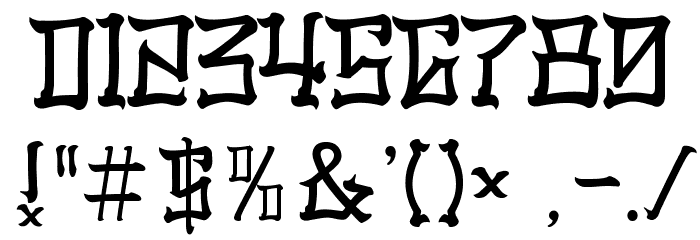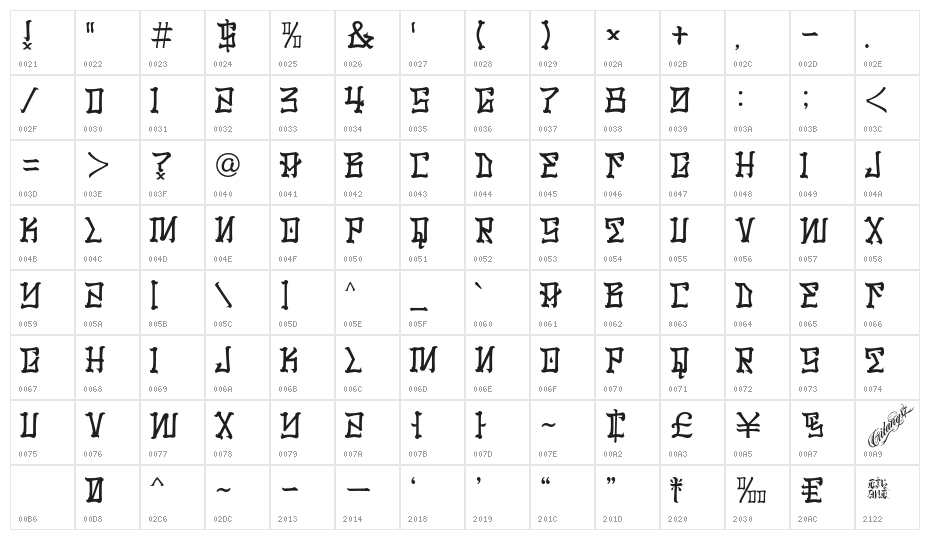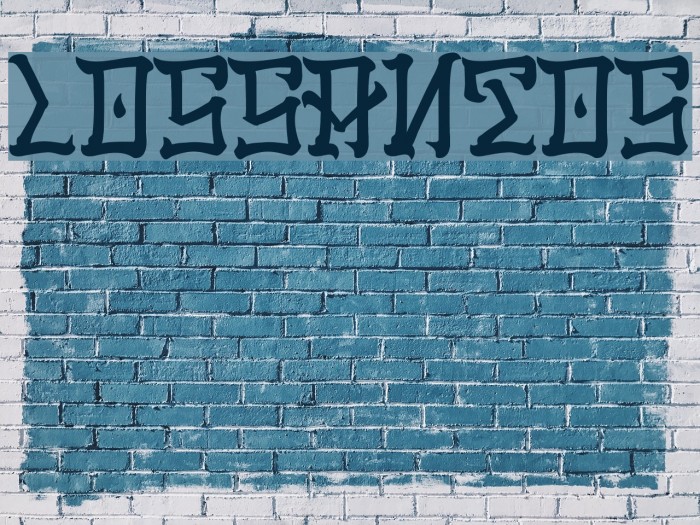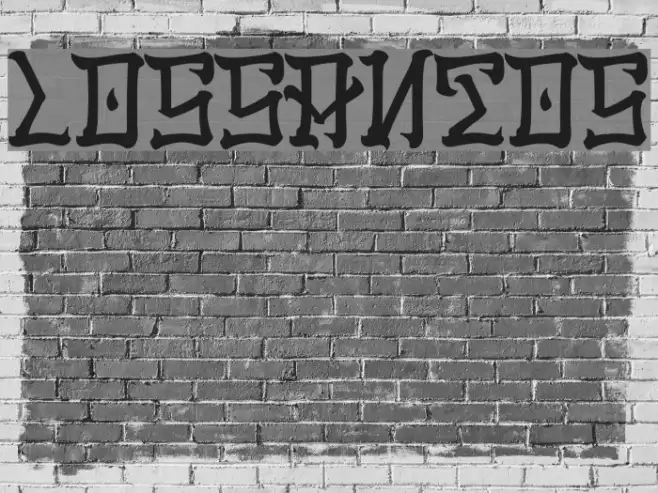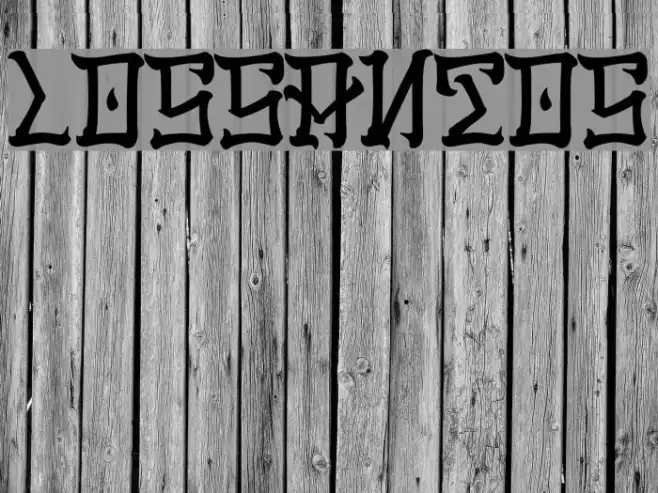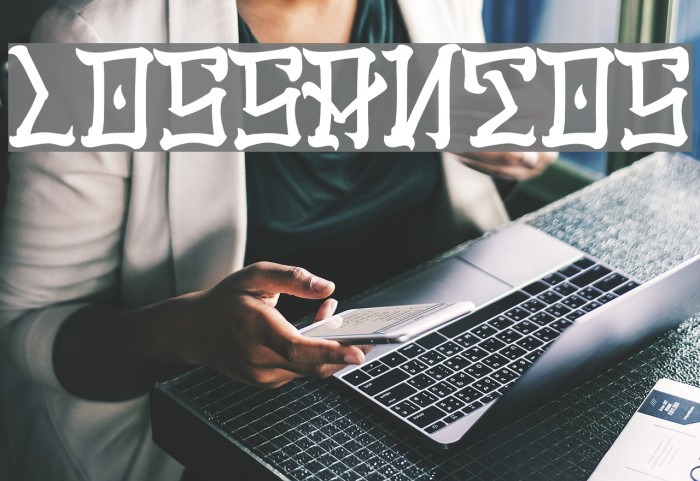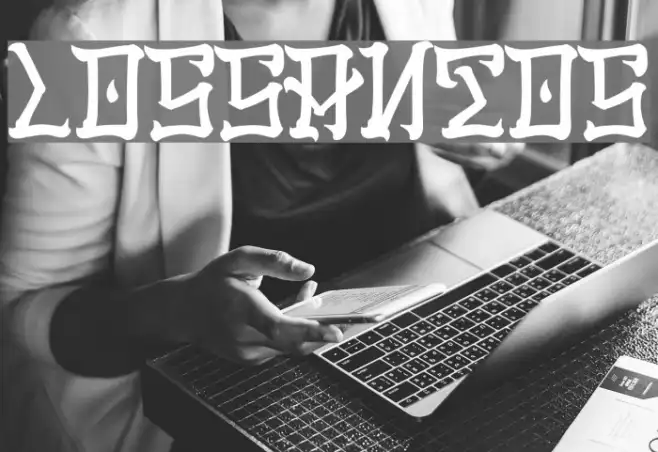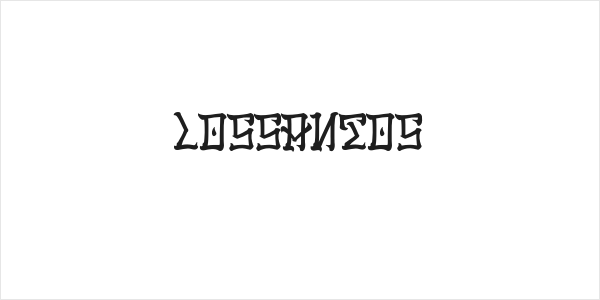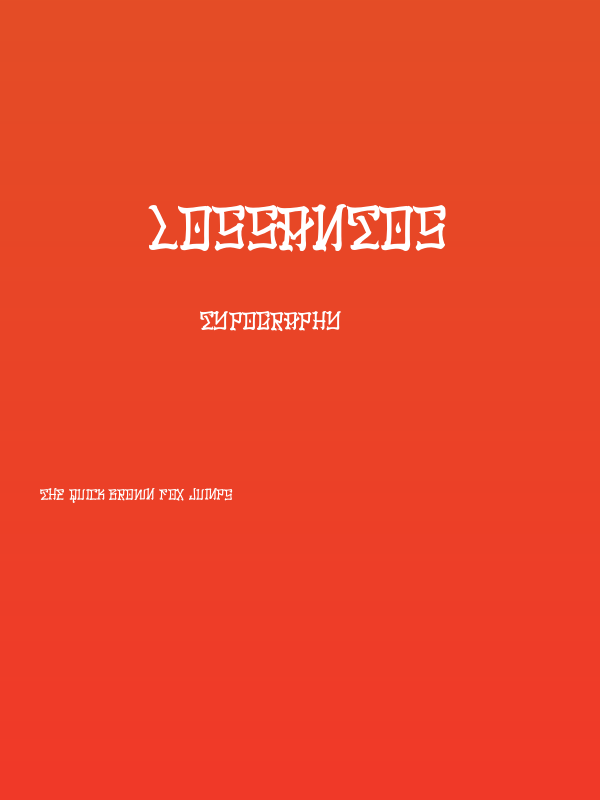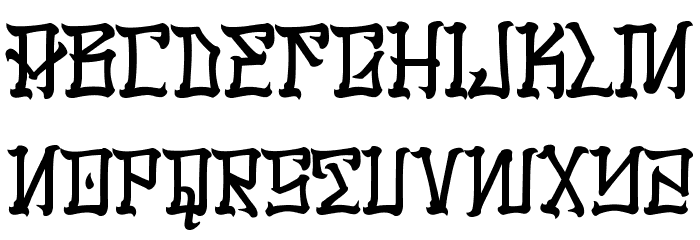
LosSantos Font
LosSantos Description
This font features a bold and distinctive style with sharp, angular edges and a gothic influence. The characters are heavily stylized, with exaggerated serifs and a strong presence. The uppercase and lowercase letters maintain a consistent design, emphasizing a medieval aesthetic. The numbers and special characters follow the same theme, providing a cohesive look across all elements. This font is ideal for projects that require a dramatic and eye-catching appearance.
| Overall Style | Gothic |
| Use Case | Logos, Headlines, Decorative purposes |
| Proposed Projects | Perfect for tattoo designs, band logos, posters, and any project needing a dramatic, gothic flair. |